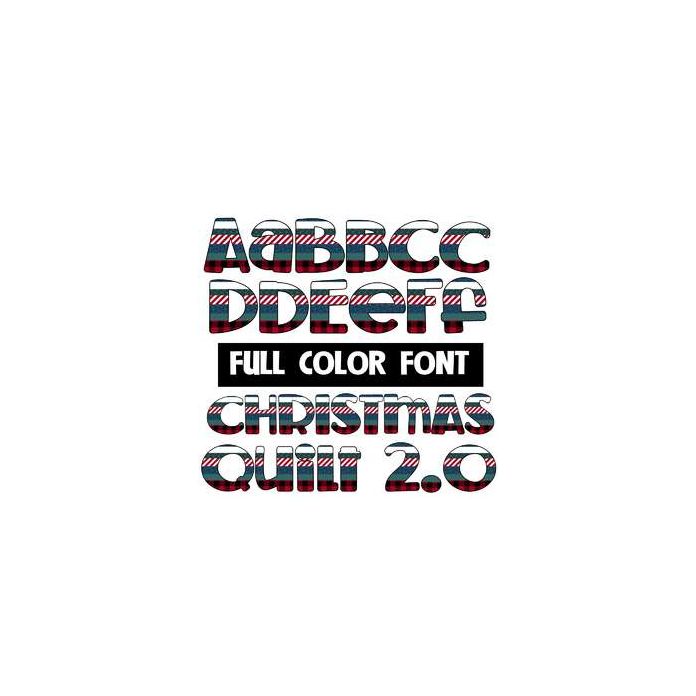
This full-color font is the same fun font as Christmas Quilt but with a different full-color story. This font works best for titles, displays, posters and more. Please note color fonts will show as black in non compatible programs. This font type is compatible with Silhouette Studio.